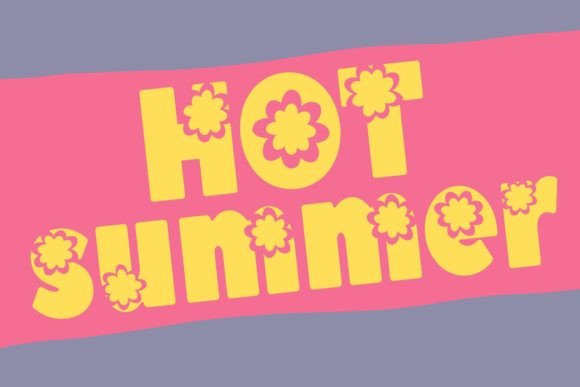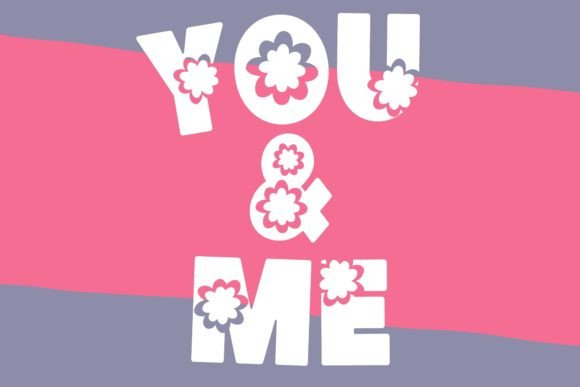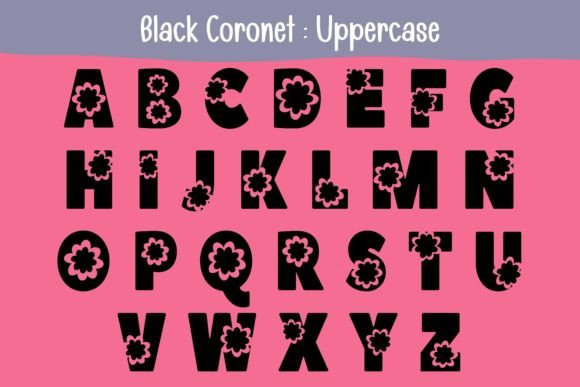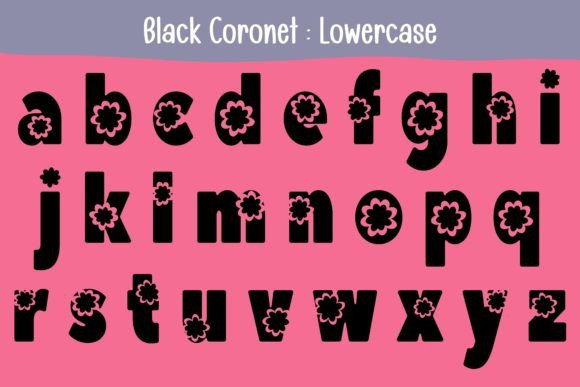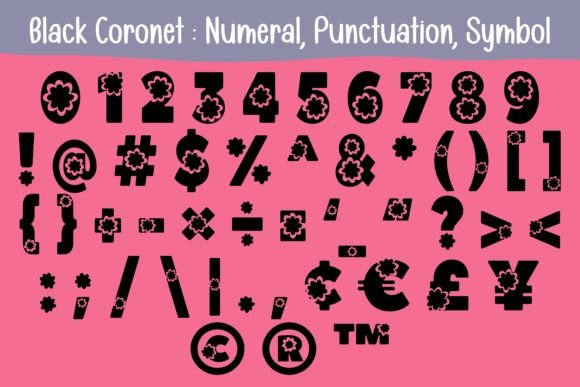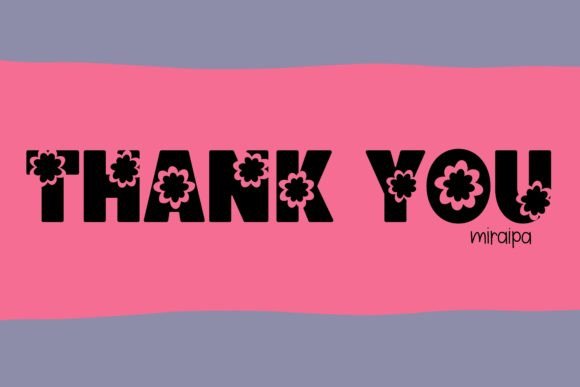
The Ultimate Guide to Black Coronet Font: Elevate Your Designs with this Cute and Lovely Decorative Font
An Honest Review of Black Coronet Font
What I Love About Black Coronet Font
- ✨ Unique and eye-catching design that’s perfect for making a statement
- ✅ Highly versatile and can be used for a wide range of projects, from wedding invitations to social media graphics
- 🎉 Excellent for headlines, titles, and short paragraphs of text
- 👍 Well-suited for digital and print designs
While Black Coronet font is an amazing addition to any design project, there are a few things to keep in mind. 🤔
- ⚠️ May not be the best choice for body text or long paragraphs, as it can be a bit ornate
- ⚠️ Some characters may not be suitable for use at very small font sizes
The Backstory of Black Coronet Font
Black Coronet font was designed by a team of typographers who wanted to create a unique and eye-catching font that would add a touch of elegance to any design project. The font was inspired by traditional coronet designs and features intricate details and ornate flourishes. 💕
| What is Black Coronet font best used for? | Black Coronet font is best used for headlines, titles, and short paragraphs of text in creative projects, such as wedding invitations, social media graphics, and posters. |
| Is Black Coronet font suitable for body text? | No, Black Coronet font is not recommended for body text or long paragraphs, as it can be a bit ornate and difficult to read. |